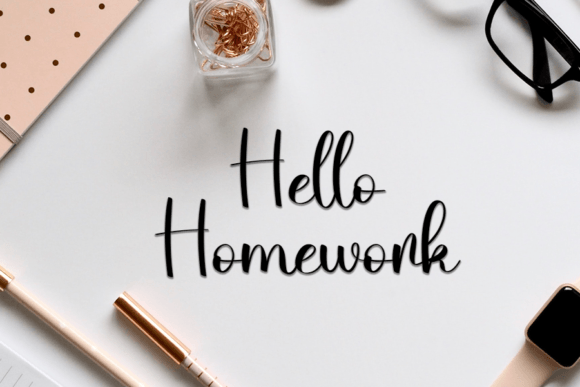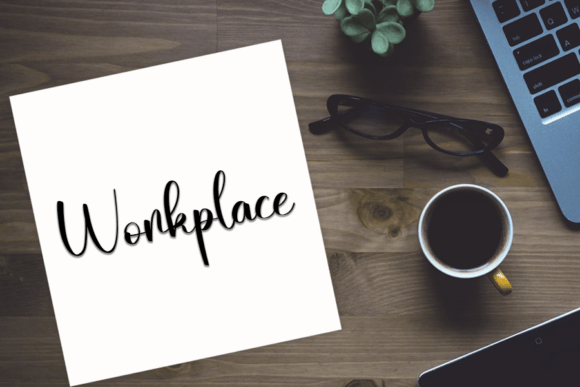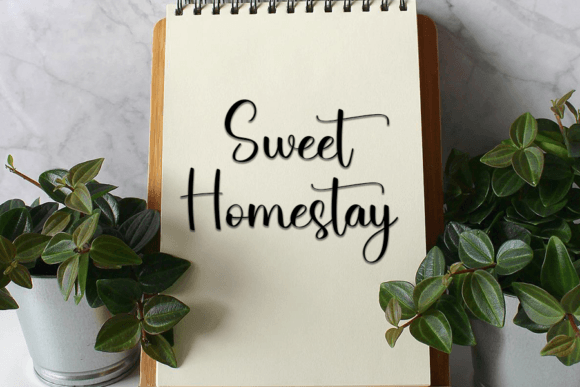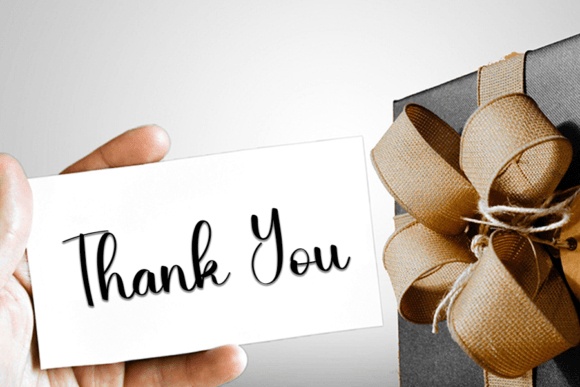
Discover the Beauty of Beton Font: Elevate Your Designs with this Bold and Beautiful Script Font
Are you tired of using the same old fonts for your designs? Look no further! Beton Font is a stunning script font that is sure to take your crafts, digital designs, presentations, and greeting cards to the next level. With its bold and beautiful style, Beton Font has the potential to become your go-to font for any occasion.
What is Beton Font?
Beton Font is a carefully crafted script font that boasts a unique and elegant style. Its bold and flowing lines make it perfect for creating eye-catching designs that demand attention. Whether you’re a designer, crafter, or simply someone who loves to create, Beton Font is a versatile font that can be used for a wide range of projects.
Key Features of Beton Font
- Bold and Beautiful: Beton Font features bold and flowing lines that give it a unique and elegant style.
- Script Font: Beton Font is a script font that is perfect for creating handwritten-style designs.
- Versatile: Beton Font can be used for a wide range of projects, including crafts, digital designs, presentations, and greeting cards.
- Easy to Read: Despite its bold style, Beton Font is easy to read, making it perfect for designs that require a clear and concise message.
Uses of Beton Font
Beton Font is a versatile font that can be used for a wide range of projects, including:
- Crafts: Use Beton Font to add a personal touch to your crafts, such as scrapbooking, card making, and DIY projects.
- Digital Designs: Beton Font is perfect for digital designs, such as social media graphics, blog posts, and website headers.
- Presentations: Add a touch of elegance to your presentations with Beton Font, making them more engaging and memorable.
- Greeting Cards: Use Beton Font to create beautiful and personalized greeting cards for special occasions.
Why Choose Beton Font?
With so many fonts available, why choose Beton Font? Here are just a few reasons:
- Unique Style: Beton Font has a unique and elegant style that sets it apart from other fonts.
- High-Quality: Beton Font is a high-quality font that is designed to produce clear and crisp results.
- Versatile: Beton Font can be used for a wide range of projects, making it a great addition to your font library.
Tips for Using Beton Font
Here are a few tips for using Beton Font:
- Use it Bold: Beton Font is a bold font, so don’t be afraid to use it to make a statement.
- Experiment with Colors: Beton Font looks great in a variety of colors, so experiment to find the perfect color for your design.
- Pair it with Other Fonts: Beton Font can be paired with other fonts to create a unique and interesting design.
- Use it for Headings: Beton Font is perfect for headings and titles, making it a great choice for designs that require a clear and concise message.
Beton Font is a bold and beautiful script font that is sure to elevate your designs to the next level. With its unique style, versatility, and ease of use, Beton Font is a great addition to any font library. Whether you’re a designer, crafter, or simply someone who loves to create, Beton Font is a must-have font that is sure to become your go-to font for any occasion.